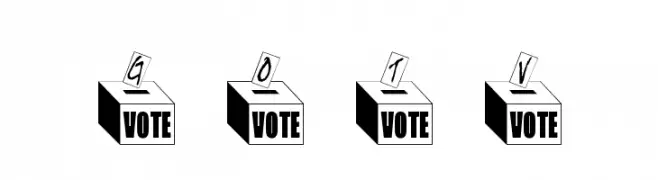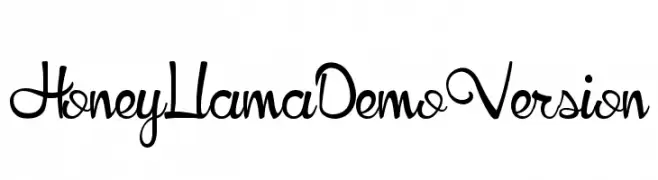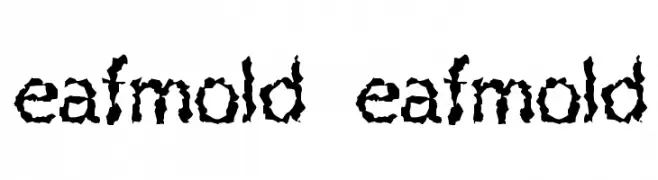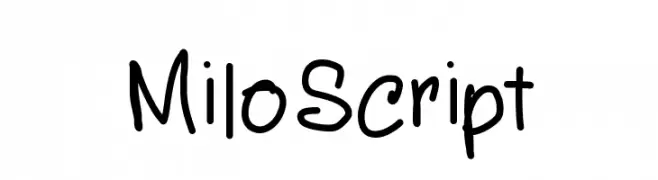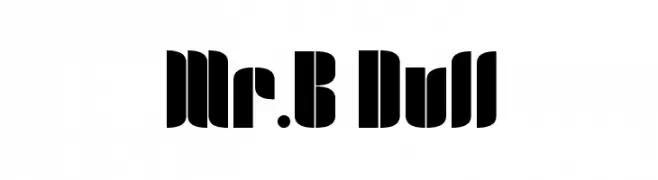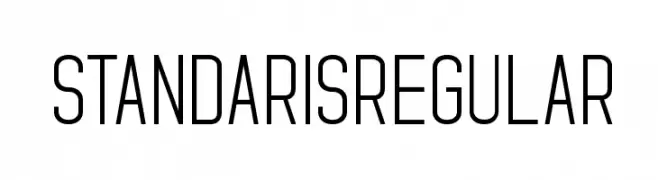
A modern, geometric sans-serif font with a clean and minimalist design.
( Camilla Bertoni Berardi - www.behance.net/camillaberf9f1 )
A playful, whimsical handwritten font with elegant loops and swirls.
( Camilo Marquez )
A playful handwritten font with a casual and energetic style.
( Carlos Fabián Camargo Guerrero - www.andinistas.net )
A distressed, grungy font with chaotic, weathered characters.
A bold, italicized font with a futuristic and dynamic style.
( Mr. Blonde - Michael Campbell - www.mrblonde.ca )
A bold, geometric font with a modern and decorative style.
( Robin Campistron - www.rcgraphics.fr )
A modern, geometric sans-serif font with a clean and minimalist design.
( imagex - www.imagex-fonts.com )
A rugged, textured font with a natural, adventurous feel, resembling wood or bark.
( Anigma New Media - www.anigma.fsnet.co.uk/an/anigma-fonts.html )
An organic, textured font with jagged edges, resembling decaying leaves.
( Font Nook - www.geocities.com/weakestlink11/ )
A bold, decorative font with characters integrated into 3D 'VOTE' boxes.